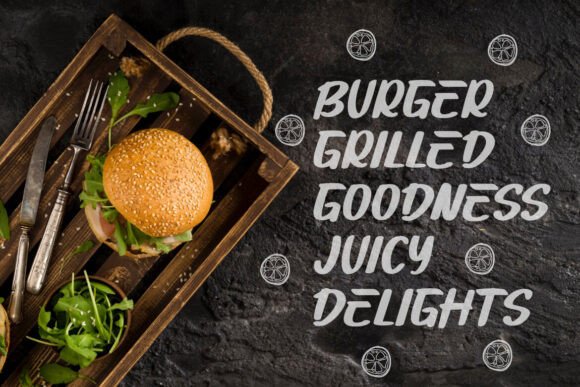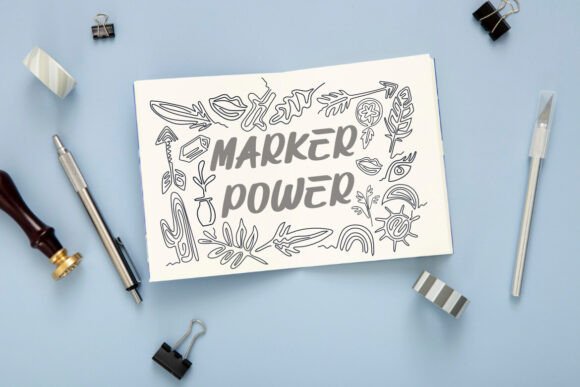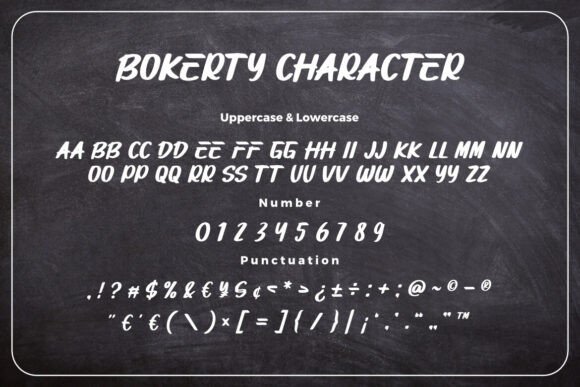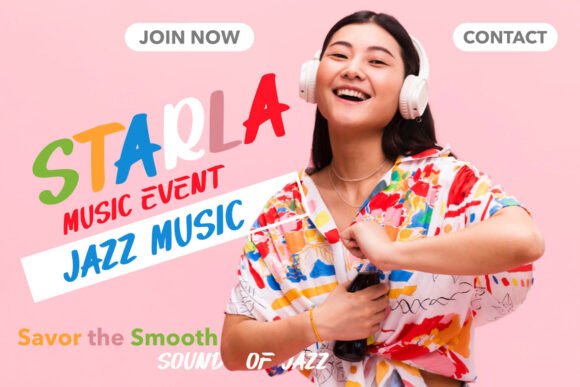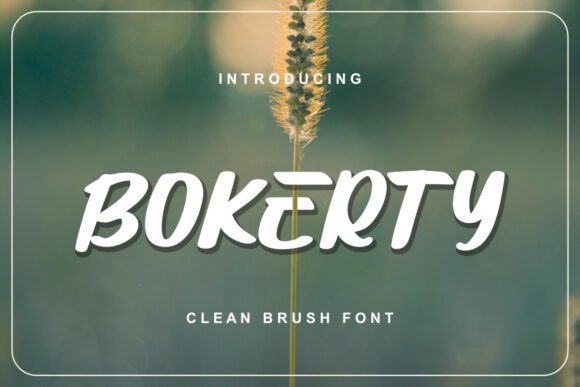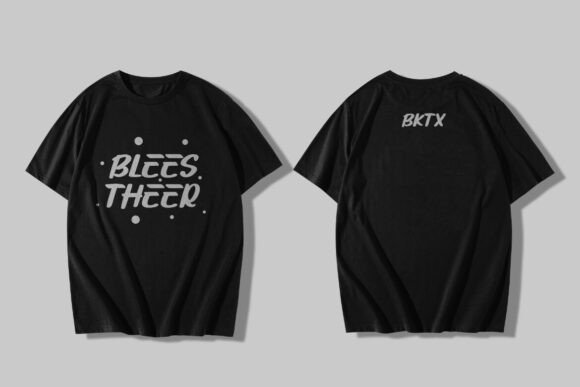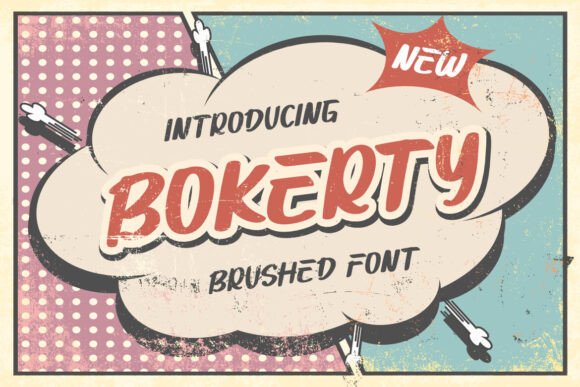
Introducing Bokerty: A Fresh Take on Brushed Typography
I’ll never forget the struggle I faced while working on a project for a trendy boutique client. The brief was simple: create an eye-catching poster that captures the essence of their new clothing line. The catch? The client wanted a font that was both elegant and rough around the edges. I scoured the internet, tried out countless fonts, but nothing seemed to fit the bill. That was until I stumbled upon Bokerty, a new brushed font that has since become my go-to for a variety of design projects.
An Honest Review of Bokerty
As a designer, I’m always on the lookout for fonts that not only look great but also offer flexibility and versatility. Bokerty checks all the boxes. Here’s what I love about it:
- ✨ High premium quality: The font is crafted with attention to detail, making it perfect for high-end designs.
- ✅ Multi-purpose: From flyers and quotes to posters, banners, and merchandise, Bokerty can handle it all.
- 💡 Unique aesthetic: The brushed texture gives it a distinctive look that’s both modern and edgy.
Of course, no font is perfect, and Bokerty has a few quirks:
- 🤔 Limited serif options: If you’re looking for a serif font, Bokerty might not be the best choice.
- ⚠️ Some glyphs require manual adjustment: While the font comes with a range of glyphs, some may require tweaking to get the perfect fit.
The Story Behind Bokerty
Bokerty was designed with the goal of creating a unique, high-quality font that captures the essence of brushed typography. Inspired by the works of renowned typographers, the designer aimed to craft a font that’s both versatile and visually striking. The result is a font that’s perfect for designers, crafters, and creative hobbyists looking to add a touch of personality to their designs.